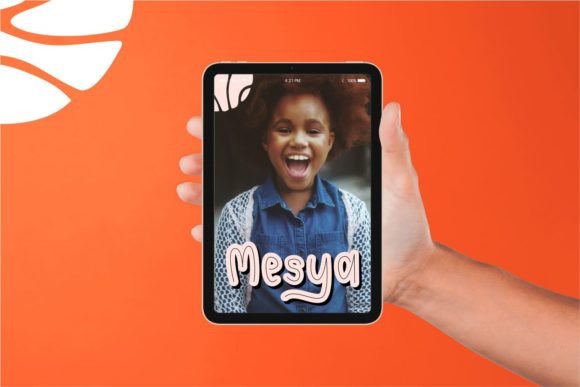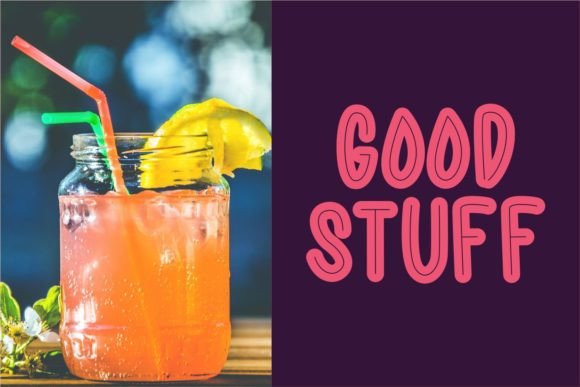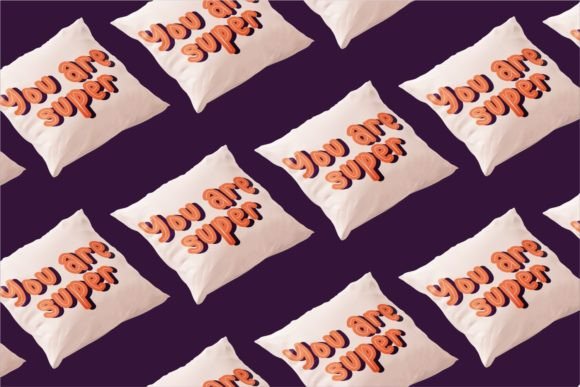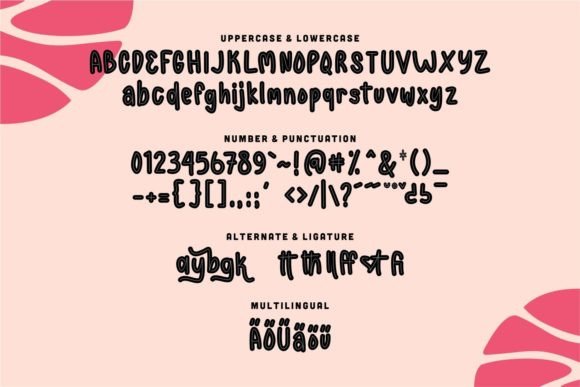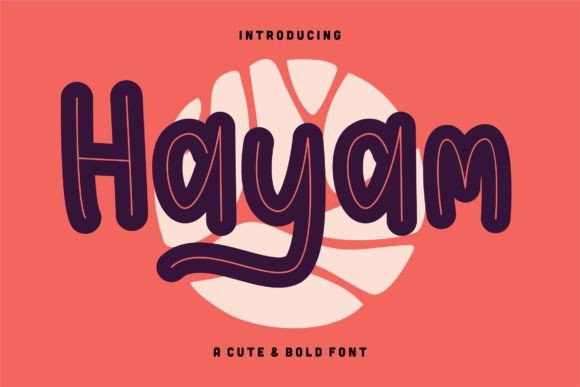
Introducing Hayam Font: The Ultimate Display Font for Creative Projects
Are you tired of using the same old fonts for your creative projects? Look no further than Hayam Font, a fun and bold display font that’s sure to take your designs to the next level. With its unique and eye-catching style, Hayam Font is the perfect addition to any font library, and is sure to enhance any creation.
What Makes Hayam Font So Special?
Hayam Font is a display font that’s designed to make a statement. Its bold and playful style makes it perfect for use in a variety of creative projects, from posters and flyers to social media graphics and website headers. The font’s unique design ensures that it will stand out from the crowd, and its versatility means that it can be used in a wide range of contexts.
Key Features of Hayam Font
- Fun and bold design: Hayam Font is designed to be attention-grabbing and fun, making it perfect for use in creative projects where you want to make a statement.
- Versatile: Whether you’re working on a poster, social media graphic, or website header, Hayam Font is the perfect choice.
- Easy to read: Despite its bold design, Hayam Font is easy to read, even at smaller sizes.
- Unique style: Hayam Font has a unique style that’s sure to set it apart from other fonts.
How to Use Hayam Font in Your Creative Projects
Hayam Font is a versatile font that can be used in a wide range of creative projects. Here are a few ideas to get you started:
- Posters and flyers: Use Hayam Font to create eye-catching posters and flyers that are sure to grab attention.
- Social media graphics: Hayam Font is perfect for use in social media graphics, where you want to make a statement and stand out from the crowd.
- Website headers: Use Hayam Font to create bold and eye-catching website headers that set the tone for your website.
- Branding and packaging: Hayam Font is also perfect for use in branding and packaging, where you want to create a unique and memorable identity for your brand.
Why Designers and Crafters Love Hayam Font
Hayam Font has quickly become a favorite among designers and crafters, and for good reason. Here are a few reasons why:
- High-quality design: Hayam Font is designed to high standards, ensuring that it looks great in any context.
- Constantly updated: The designers of Hayam Font are committed to constantly updating and improving the font, ensuring that it stays relevant and fresh.
Tips for Getting the Most Out of Hayam Font
Here are a few tips for getting the most out of Hayam Font:
- Experiment with different sizes: Hayam Font looks great at a wide range of sizes, so don’t be afraid to experiment and find the size that works best for your project.
- Pair it with other fonts: Hayam Font pairs well with a wide range of other fonts, so try pairing it with some of your favorite fonts to create a unique and interesting look.
- Use it consistently: To get the most out of Hayam Font, try using it consistently throughout your project. This will help to create a cohesive and professional-looking design.
In conclusion, Hayam Font is a fun and bold display font that’s perfect for use in a wide range of creative projects. With its unique and eye-catching style, Hayam Font is sure to enhance any creation and take your designs to the next level. Whether you’re a designer, crafter, or simply someone who loves to create, Hayam Font is a must-have addition to your font library.